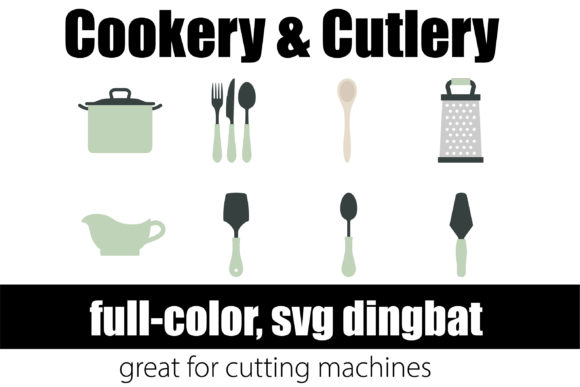
**Feast Your Eyes on Cookery and Cutlery: A Gastronomic Delight for Your Designs**
Immerse yourself in a culinary extravaganza with Cookery and Cutlery, the captivating font family that brings the vibrant world of cooking to life. This symphony of colors and shapes is the perfect ingredient for adding a dash of flavor to your digital creations.
**A Vibrant Canvas for Your Kitchen Masterpieces**
Express your culinary passion through the expressive designs of Cookery and Cutlery. Its delectable collection of cutlery and cookery-themed dingbats transforms your designs into mouthwatering masterpieces. Each element is meticulously crafted to evoke the joy of cooking, inviting your audience to savor the flavors of your creations.
**Dive into a World of Culinary Delights**
With Cookery and Cutlery at your fingertips, the possibilities are endless. Embark on a culinary adventure, creating designs that tantalize the taste buds and ignite the imagination. From delectable menus to eye-catching packaging, this font family is your secret weapon for crafting designs that leave a lasting impression.
**A Culinary Symphony in Full Color**
Cookery and Cutlery is more than just a font; it's a symphony of colors that burst forth onto your canvas. OpenType full-color (SVG) technology brings your designs to life, allowing you to paint with a vibrant palette that captures the essence of your culinary creations.